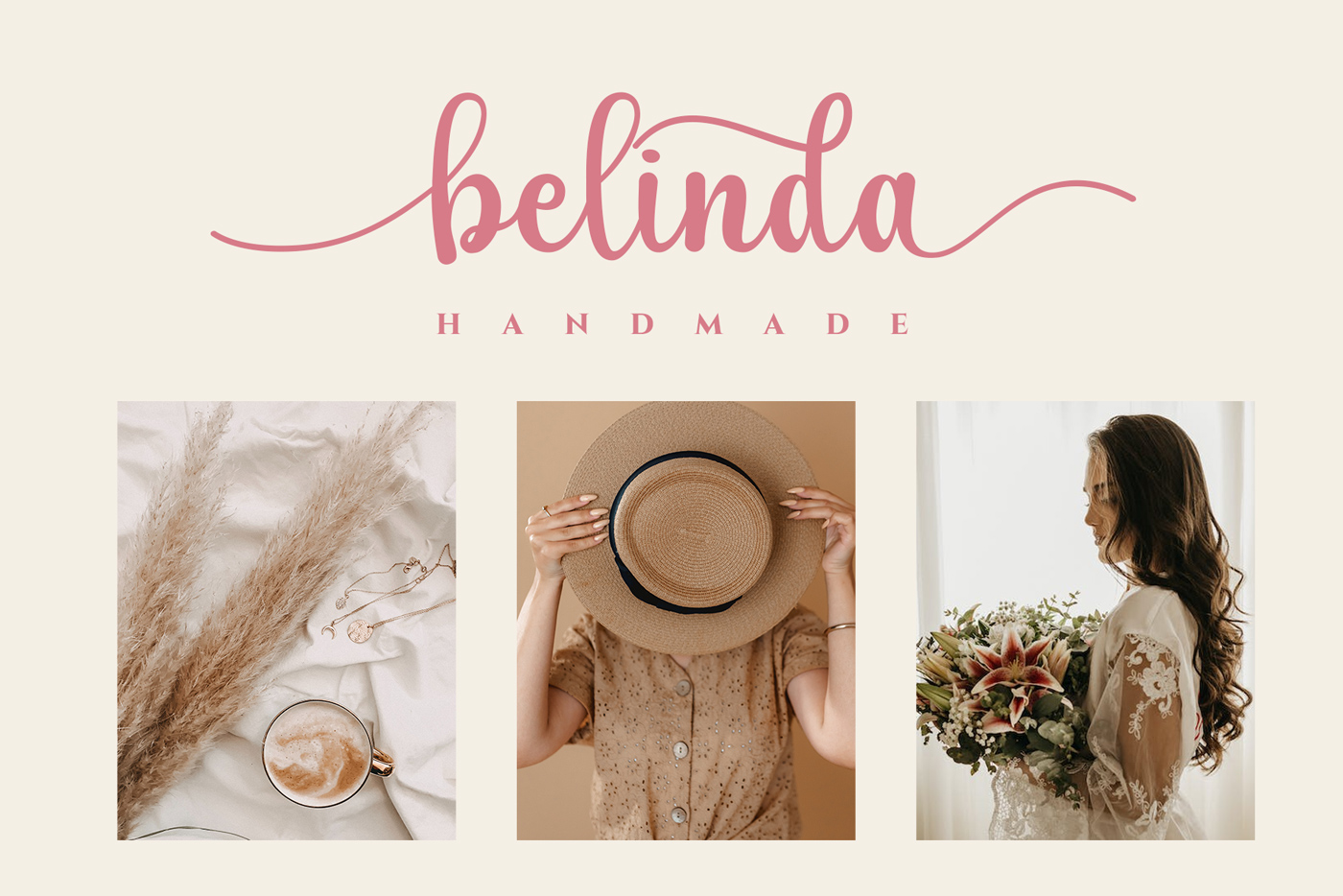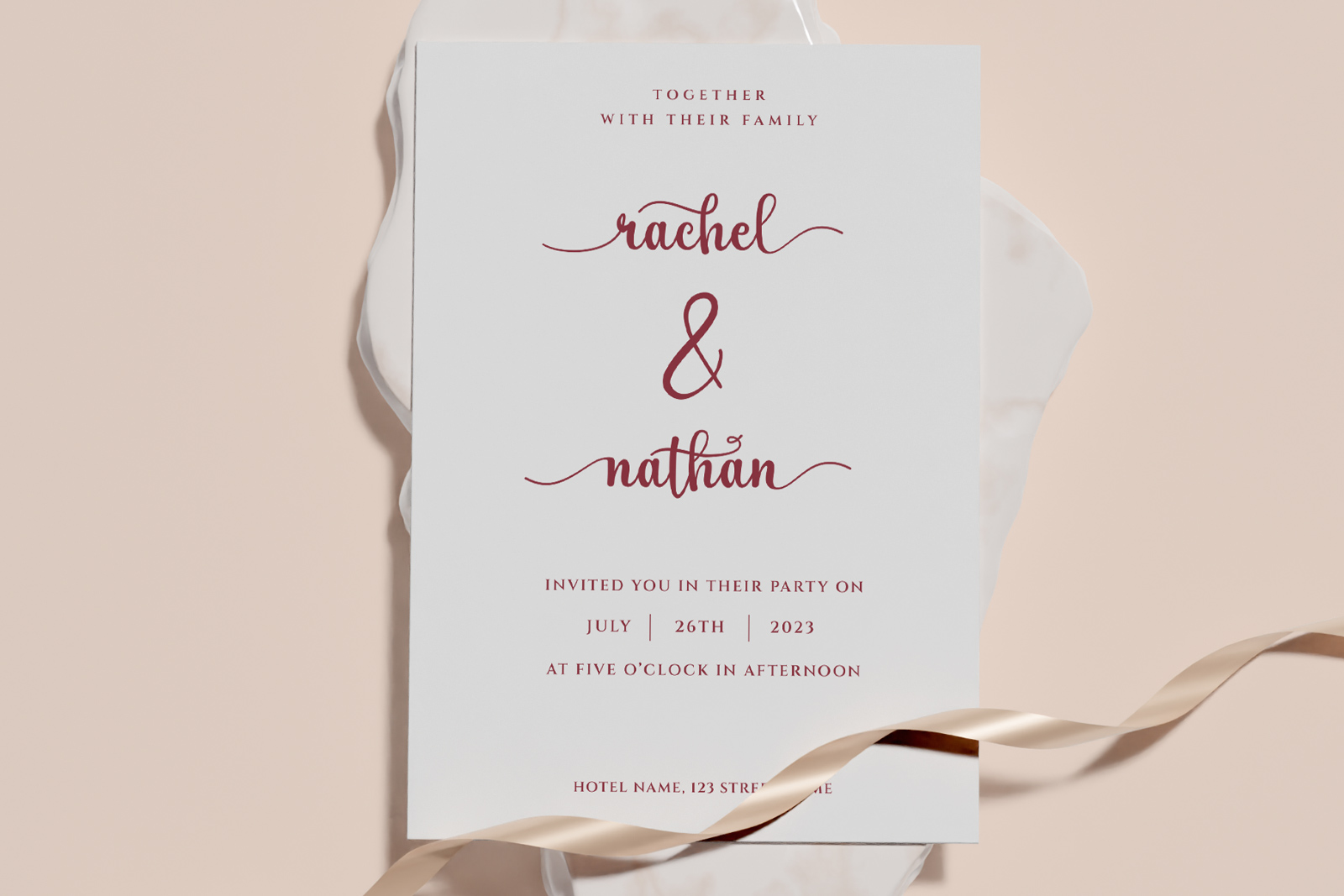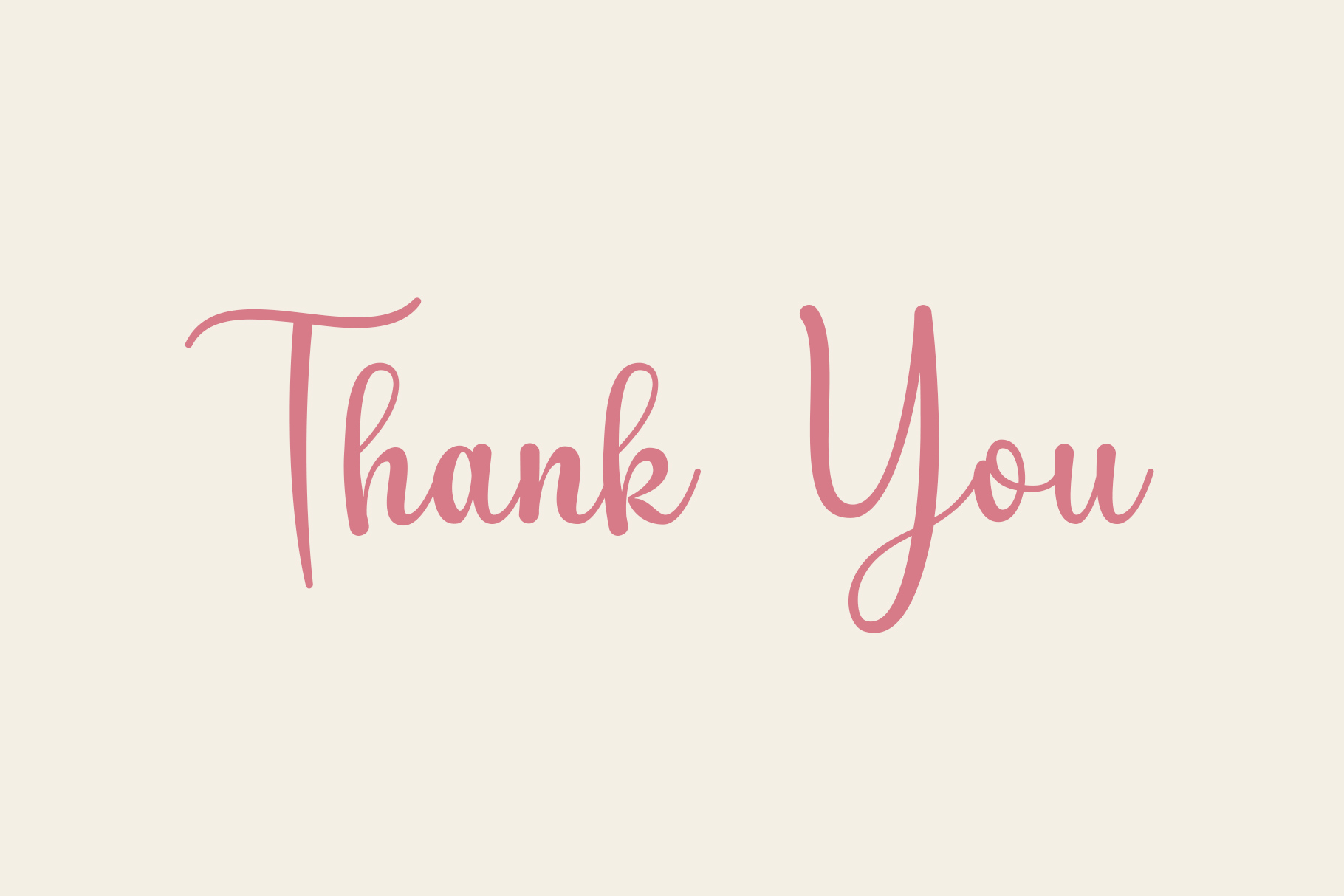
Soltera Handwritten Font
Soltera is handwritten font it’s looks modern, feminine, girly, catchy and easy to use. Soltera is the great choice for watermark on wedding organizer, signature or signature logo design, quotes, album cover, business card and many other design project.
• Basic Latin A-Z and a-z
• Begin and end swashes